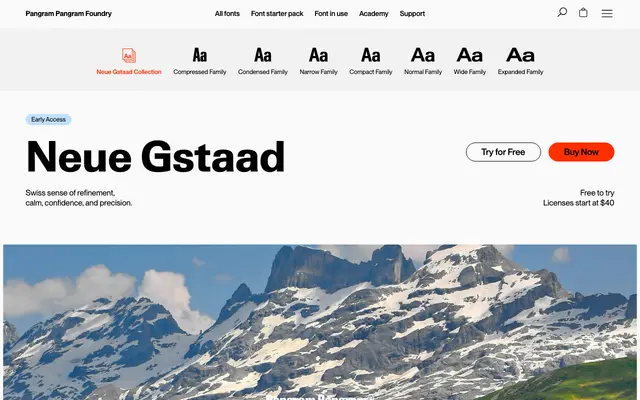
Neue Gstaad
Pangram Foundry · Ian Patry, Francesca Bolognini, Mat Desjardins
A Swiss-inflected grotesque by Ian Patry spanning seven widths from Compressed to Expanded, built as a 112-style variable system.
Designed by Ian Patry with Francesca Bolognini and Mat Desjardins, Neue Gstaad organises 16 styles per subfamily across seven width variants, yielding 112 styles in total alongside variable font cuts for each. The design references classic Swiss grotesque sensibilities while seeking a quieter, more restrained expression rather than overt historicism. Broad language support covers Latin Extended and Cyrillic scripts, and the family is built with OpenType features throughout.
Categorised by the foundry as Grotesk and Sans Serif; the design draws on Swiss grotesque tradition with contemporary refinement, structured as a large variable system spanning compressed to expanded widths.